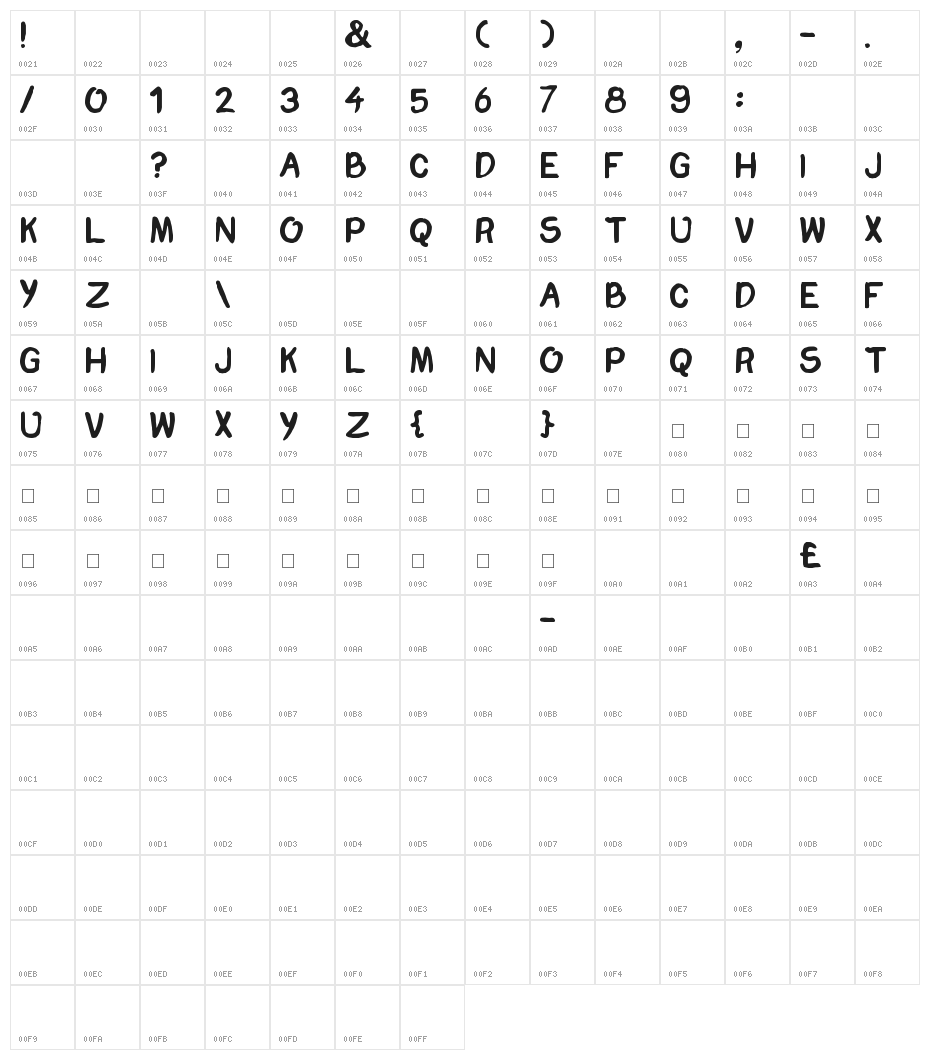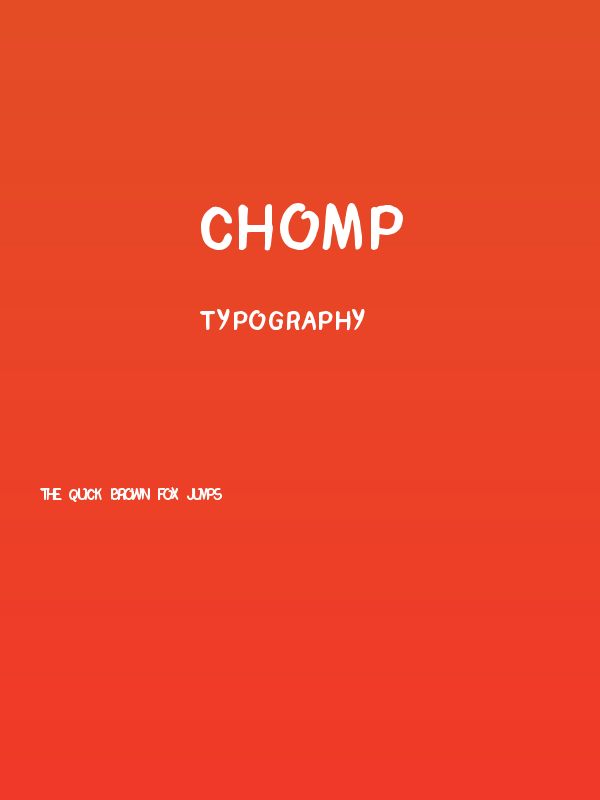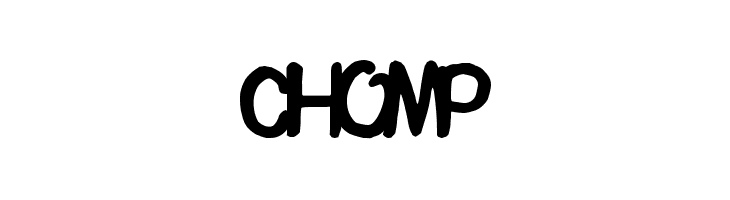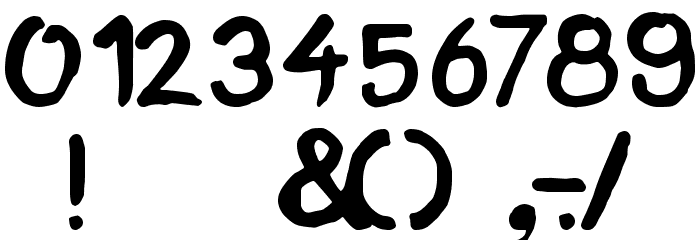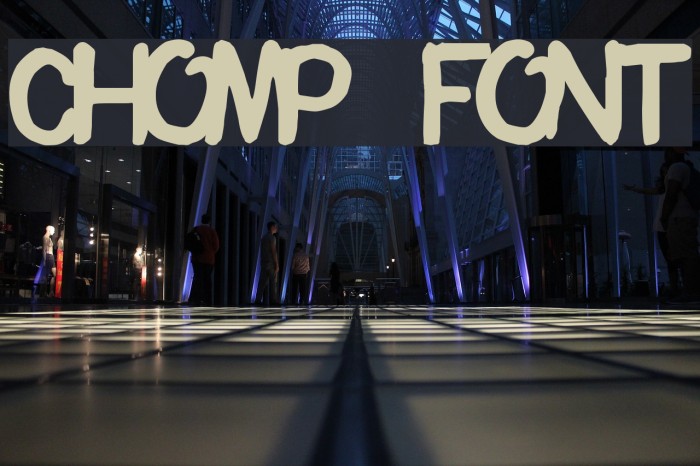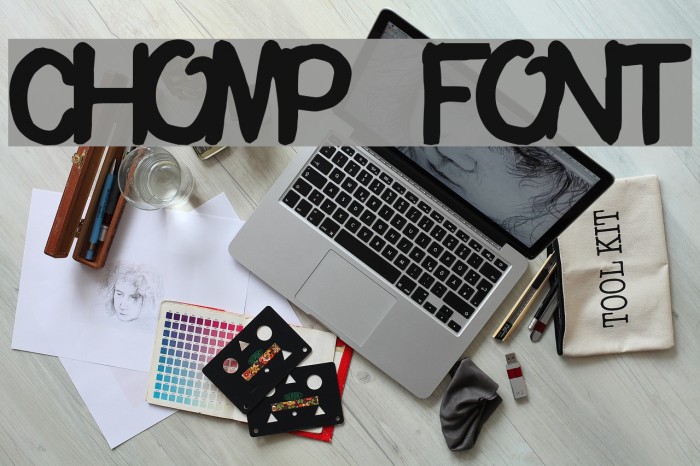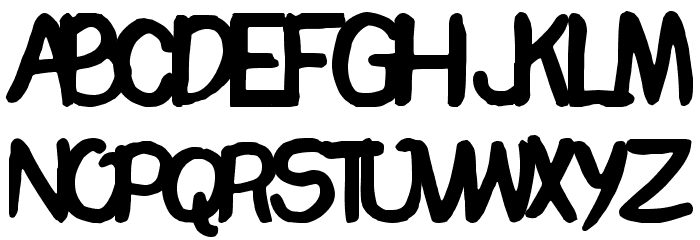
Chomp Font
Chomp Description
This font exhibits a playful and bold handwritten style, characterized by its thick strokes and slightly irregular shapes, giving it a casual and friendly appearance. The uppercase and lowercase letters maintain a consistent flow, with rounded edges and a slightly bouncy baseline that adds to its charm. The numerals and special characters follow the same playful aesthetic, making it suitable for projects that require a touch of whimsy. Its boldness ensures readability while the informal style makes it ideal for creative and fun designs.
| Overall Style | Playful |
| Proposed Projects | Ideal for children's books, playful branding, greeting cards, and informal posters. |